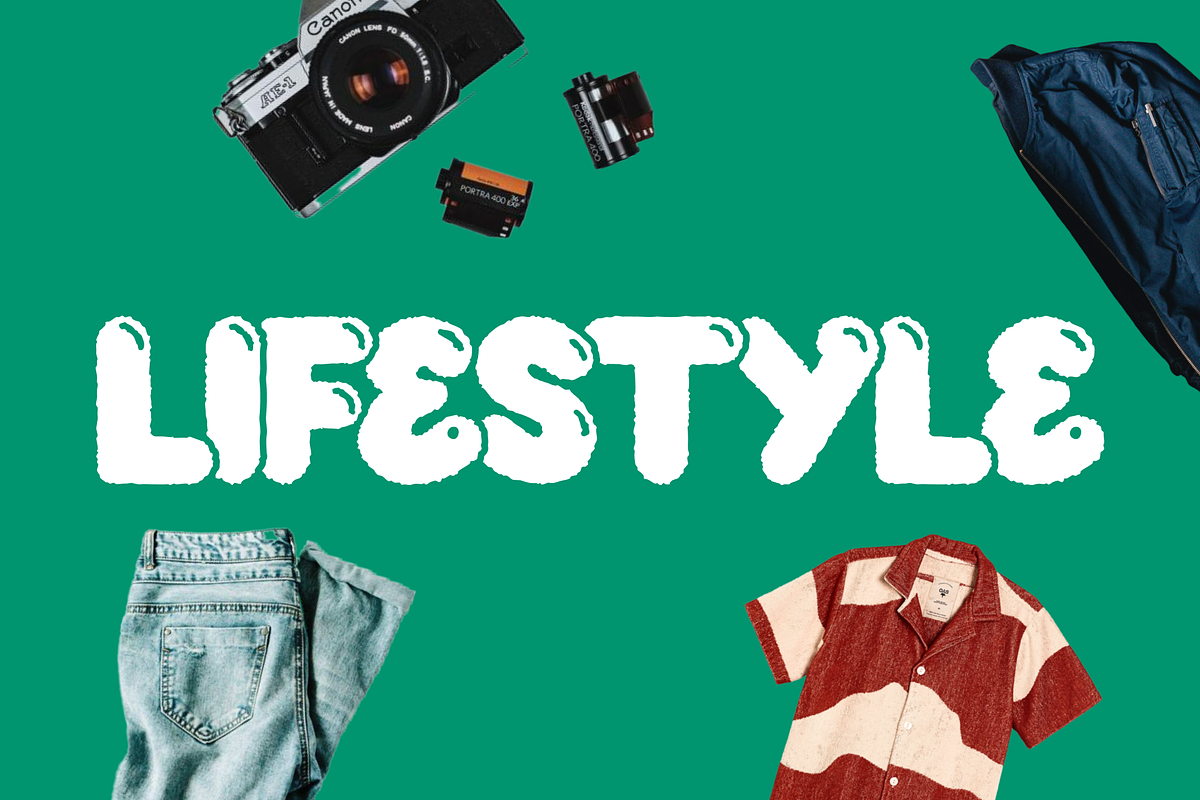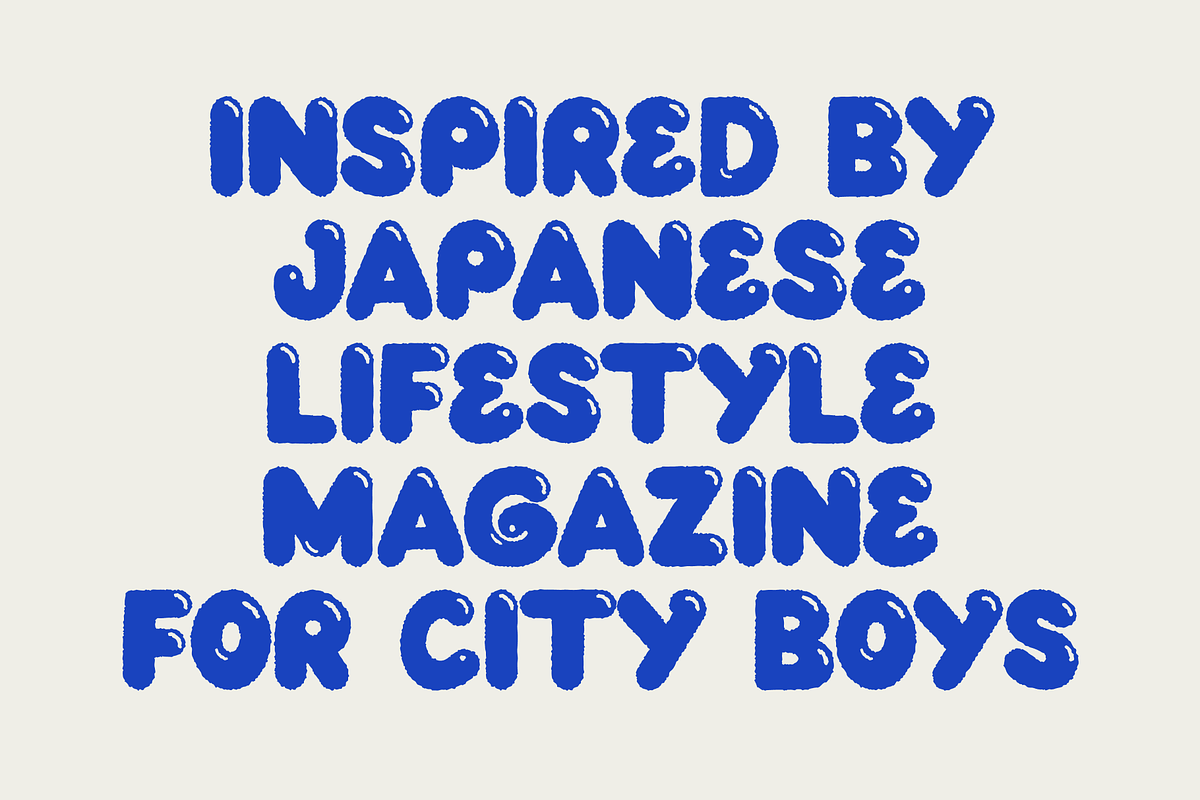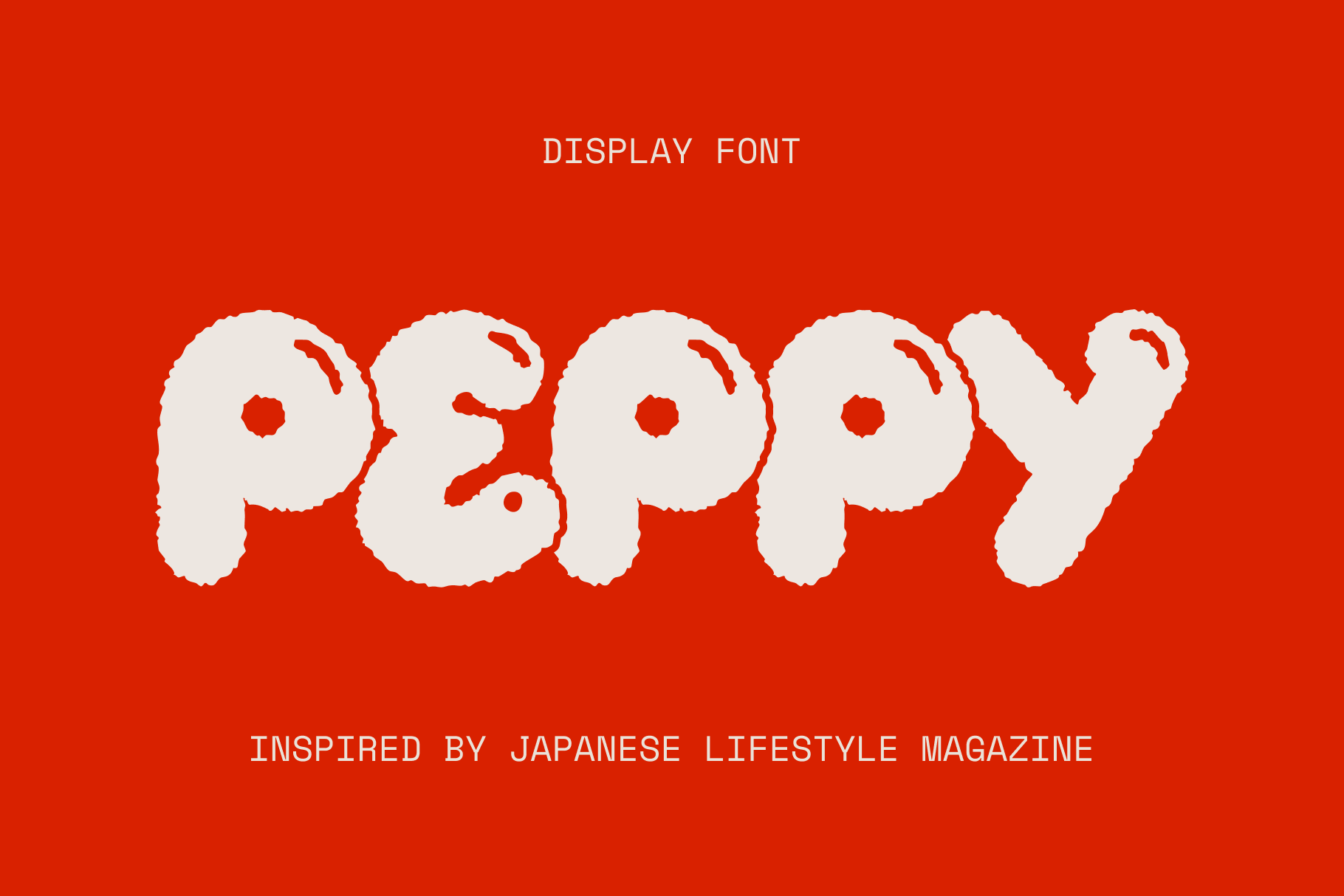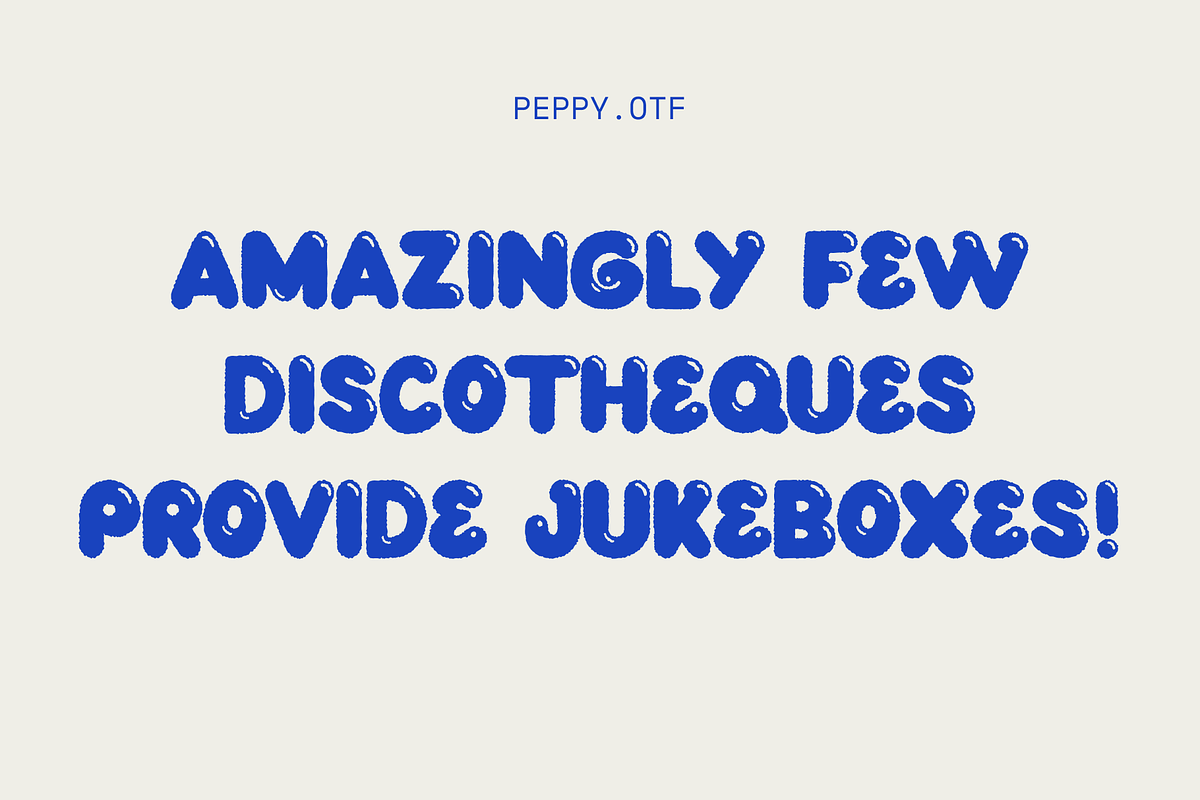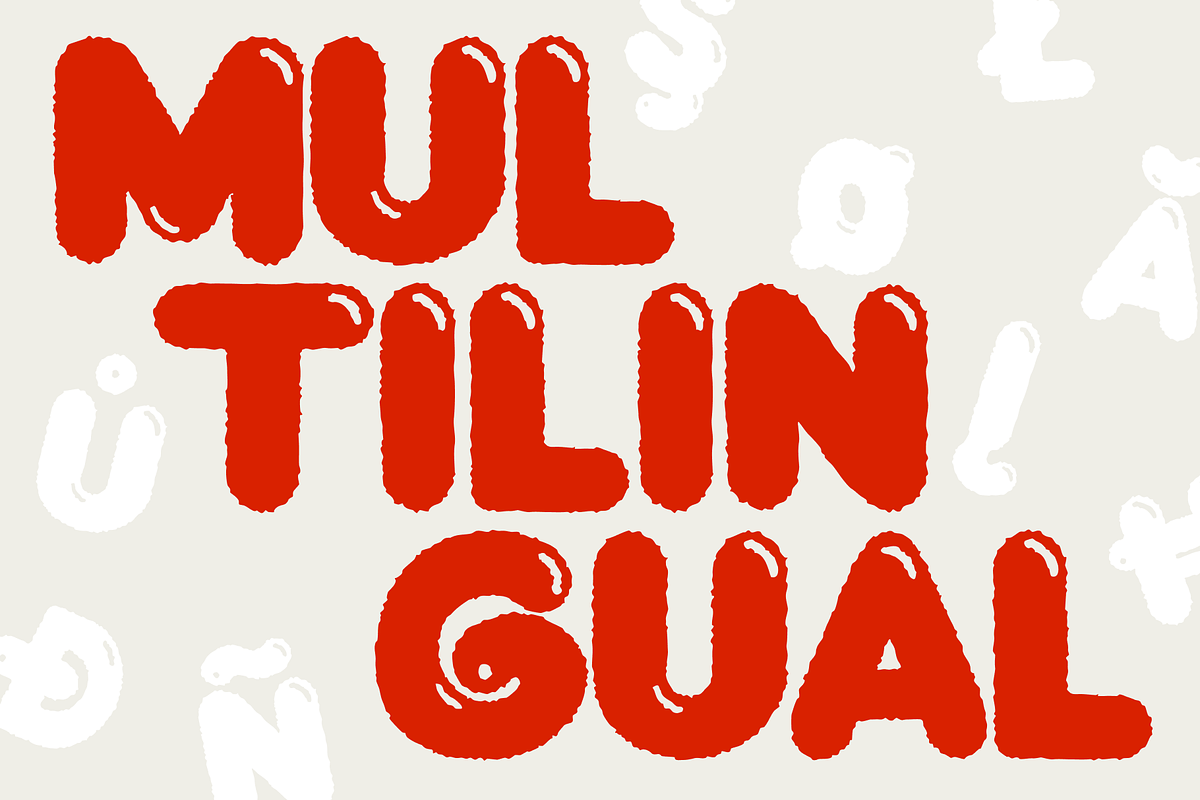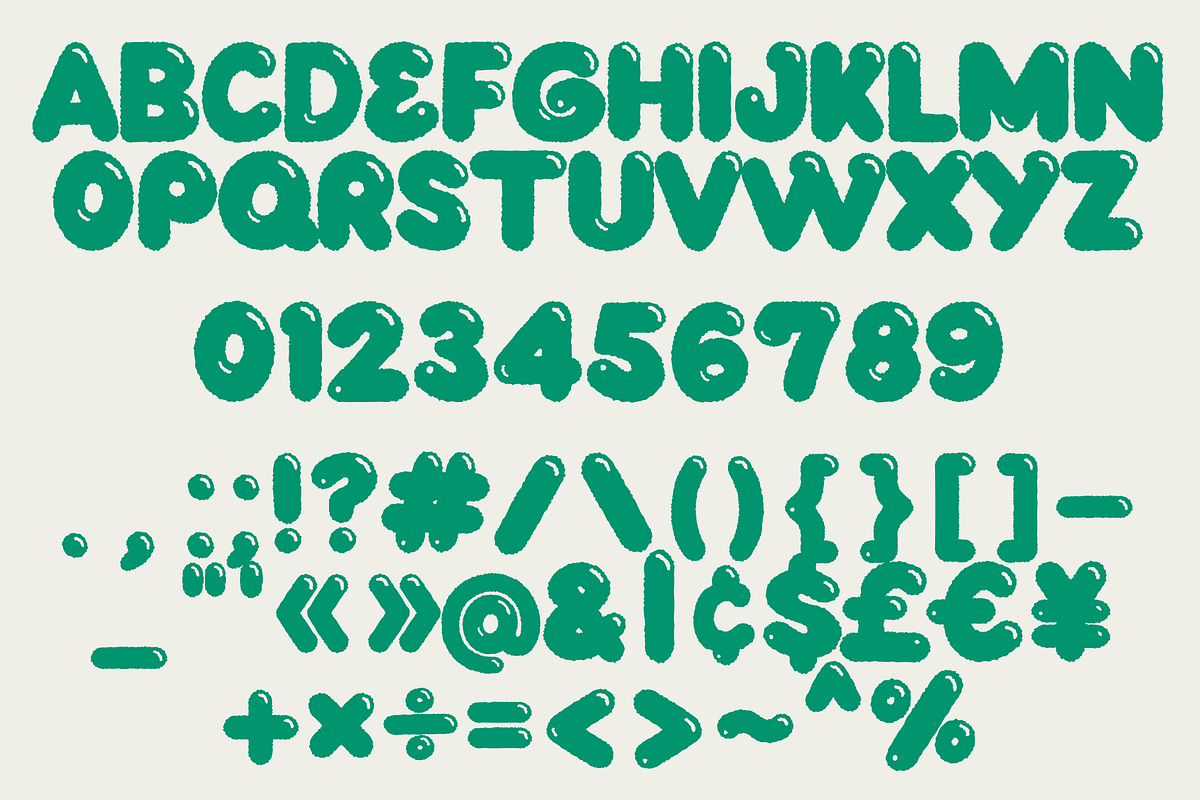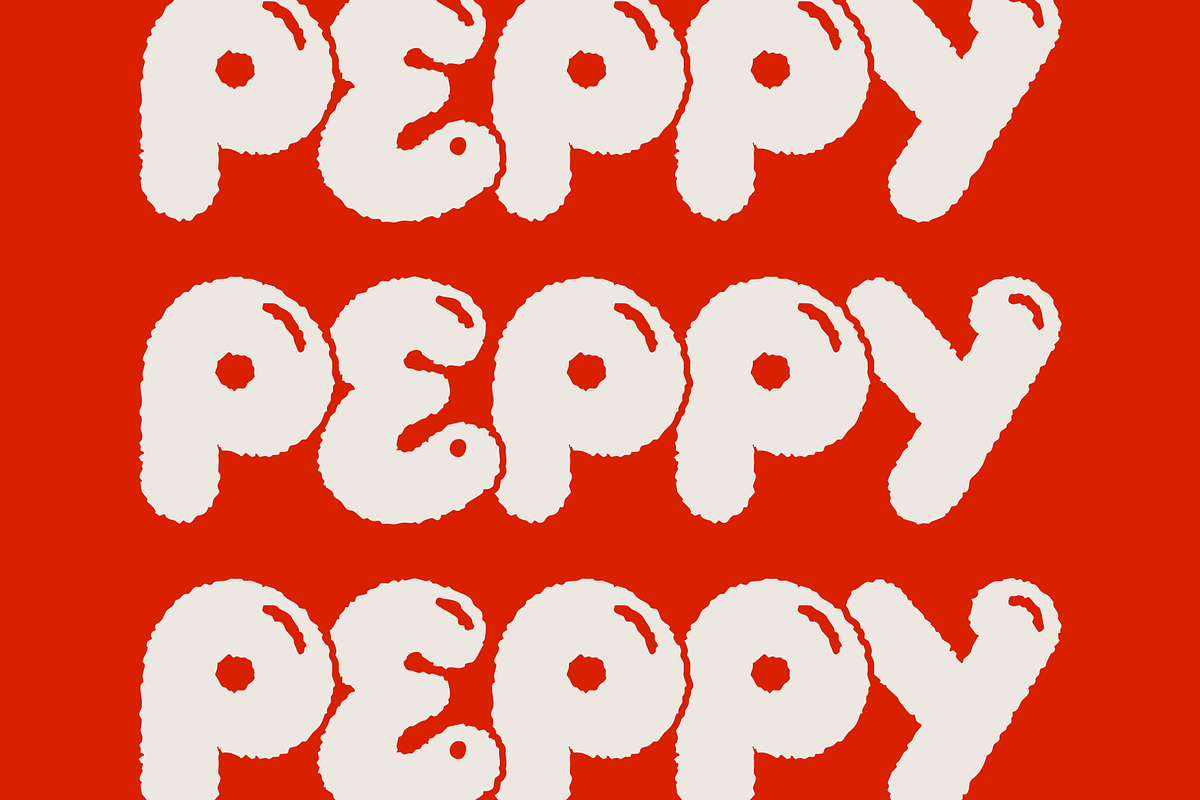
PEPPY — hand-drawn bouncy font
PEPPY is a hand-drawn bubble typeface with textured edges and fun highlights, inspired by everybody's favourite Japanese lifestyle magazine!
PEPPY supports a wide range of Latin-based languages: Afrikaans • Albanian • Danish • English • French • German • Indonesian • Italian • Malay • Māori • Norwegian Nynorsk • Portuguese • Romansh • Somali • Spanish • Swahili • Swedish • Zulu and more.